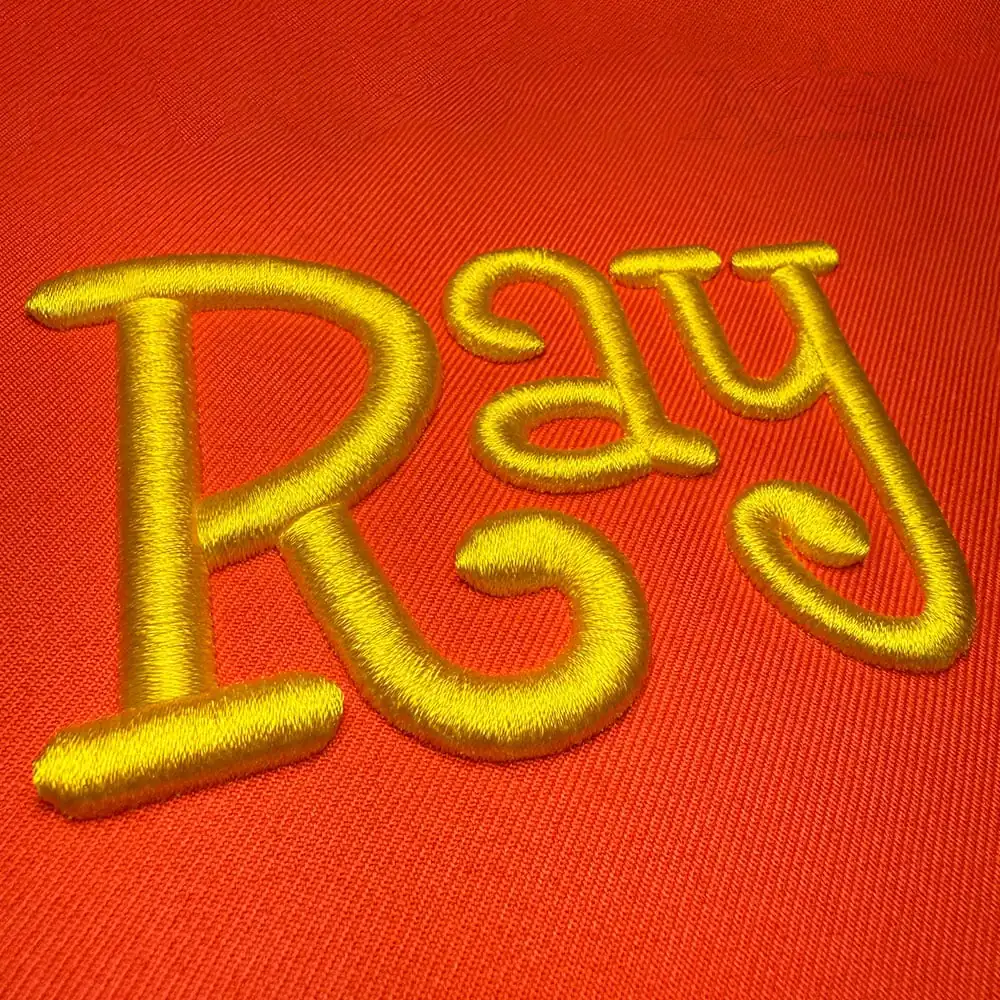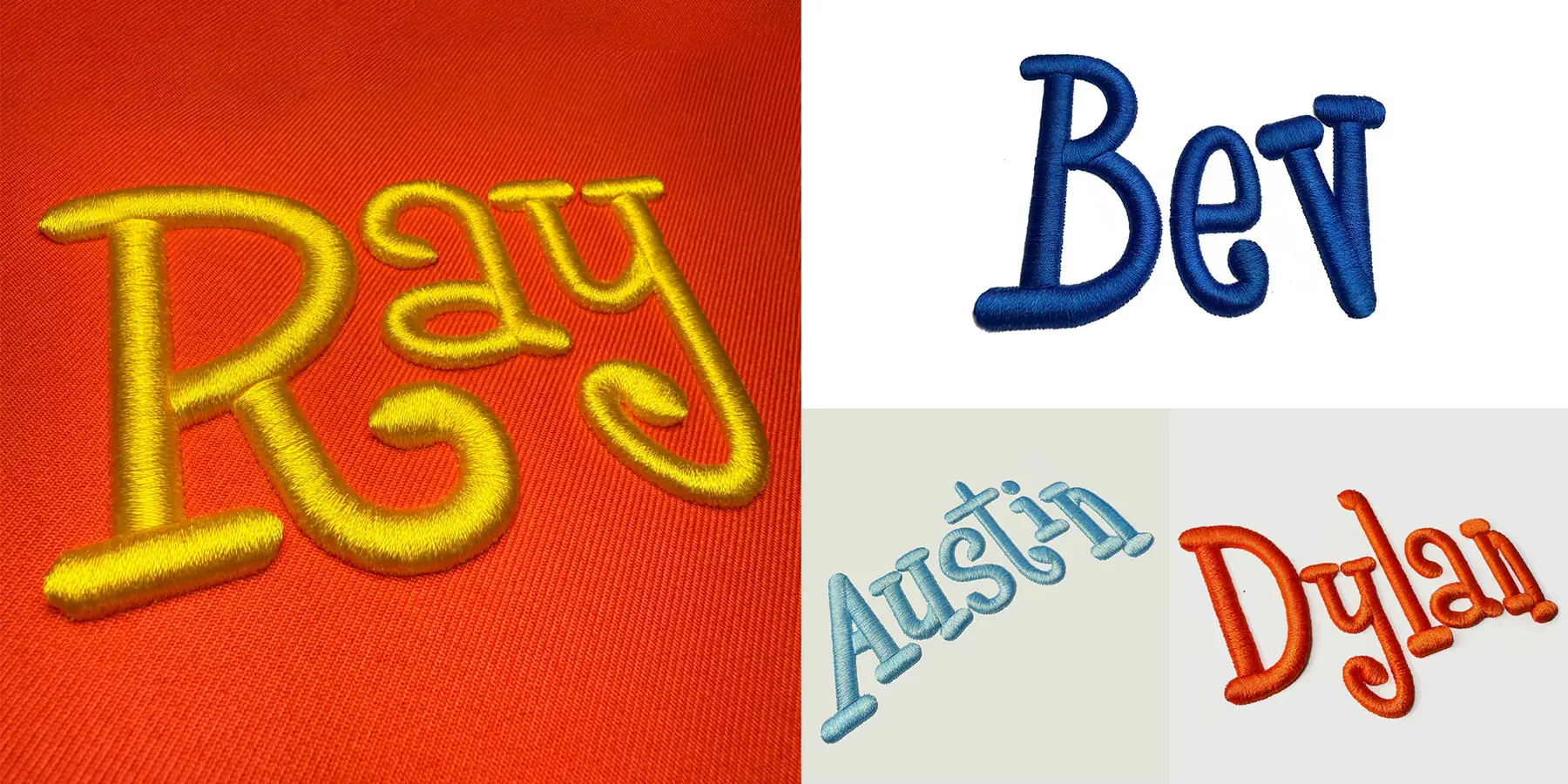
3-D Puffy Boys R Gross Embroidery Font
There is an undeniable magic when flat thread transforms into sculptural, touchable art right before your eyes on the embroidery machine. Inspired by the unapologetic energy of vintage skate culture, collegiate varsity jackets, and playful 90s attitude, our 3-D Puffy Boys R Gross alphabet was created to deliver maximum dimensional drama. Digitized specifically to sculpt around embroidery craft foam, every letterform rises bold, round, and tactile from the fabric, bringing an electrifying sense of fun and street-ready confidence to customized apparel.
This specialty alphabet is engineered to retain clean foam-perforating edges across four distinct, versatile sizes:
Project Ideas for 3-D Puffy Boys R Gross
- Structured Headwear: Transform blank snapbacks, dad caps, and trucker hats with pro-level dimensional front-panel lettering.
- Bespoke Streetwear: Embroider oversized initials or playful monograms onto heavyweight fleece crewnecks and oversized hoodies.
- Varsity & Bomber Jackets: Create elevated, retro-style felt or twill jacket backs that stand proud with authentic puff volume.
- Youth Gear & Team Bags: Personalize rugged canvas duffels, sports gear bags, and youth backpacks with lettering that holds up to rough-and-tumble everyday use.
- Custom Appliqué Patches: Stitch bold, freestanding dimensional emblems that can be sewn onto denim vests, chore jackets, or skate pouches.
Because dimensional puff embroidery demands solid fabric tension and support, placement makes all the difference:
- Cap Crown Center: The quintessential home for 3D foam typography; hoop firmly on a structured buckram-backed panel for crisp, shadow-casting relief.
- Center Chest: Make a commanding graphic statement across the chest of heavy French terry, fleece, or canvas outerwear.
- Forearm & Outer Bicep: A contemporary streetwear favorite, running bold 1.5-inch or 2-inch lettering vertically along the sleeve of a heavyweight sweatshirt.
- Back Yoke: Place smaller 1-inch or 1.5-inch text arched across the upper back of jackets for a sleek, understated team aesthetic.
3-D Puffy Boys R Gross Craft & Letterform Details
Digitizing for 3D puff is an exacting science that requires far more than simply boosting satin density. To achieve clean, professional edges that effortlessly cleanly slice and tuck craft foam without showing underlay, the 3-D Puffy Boys R Gross letterforms have been meticulously constructed from the inside out. Each stroke features specially calibrated end-caps that pinch and perforate foam precisely at the outer margins, preventing stray foam bits from peeking through the edges. The satin columns are intentionally widened and reinforced with high-tension density capping, counteracting fabric push and pull so every curve, loop, and straight terminal finishes smooth, pillowy, and perfectly uniform.